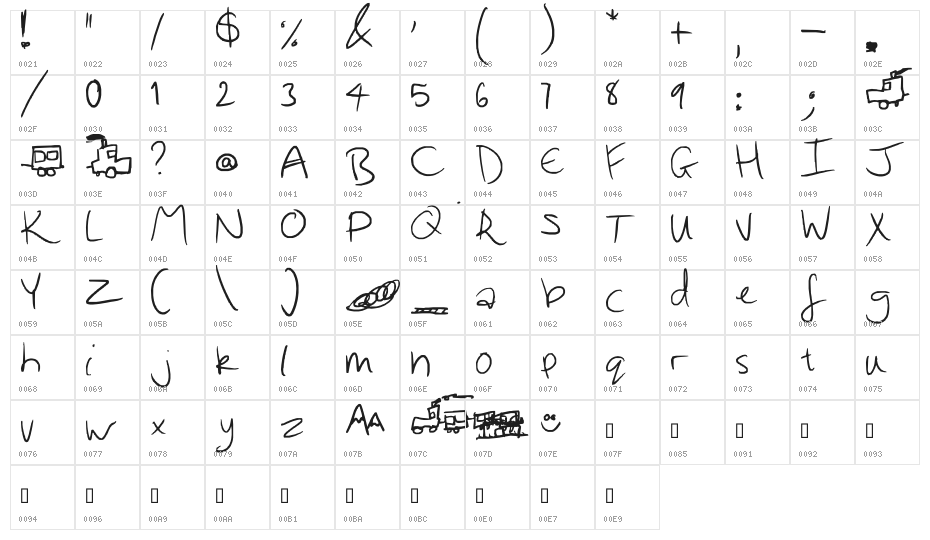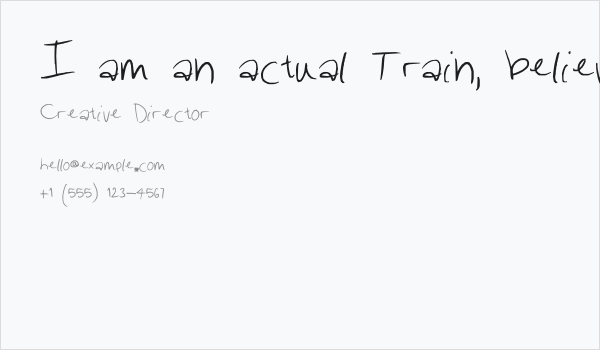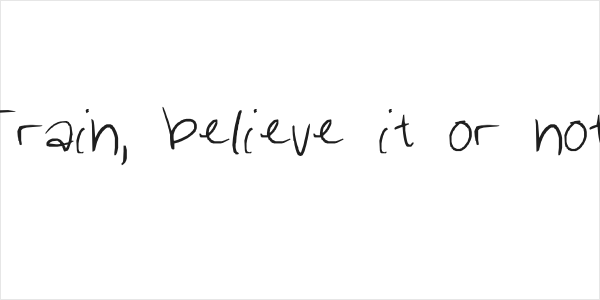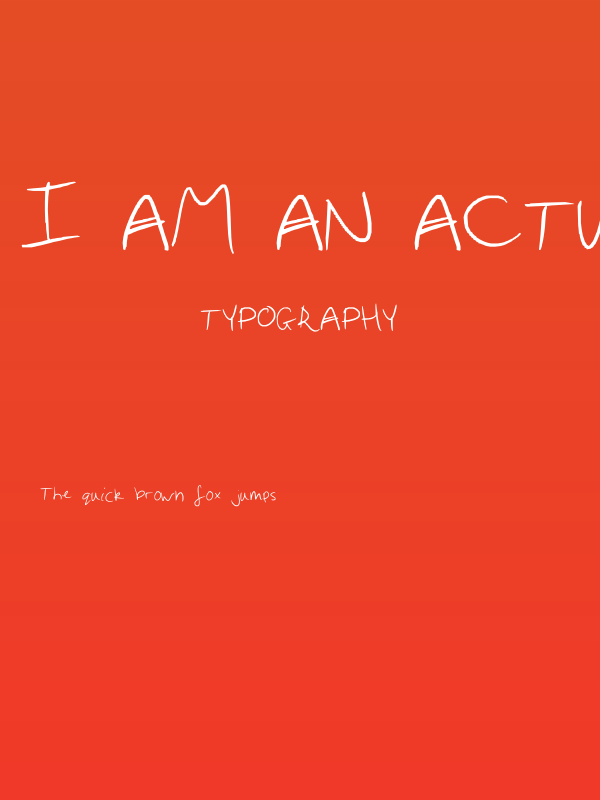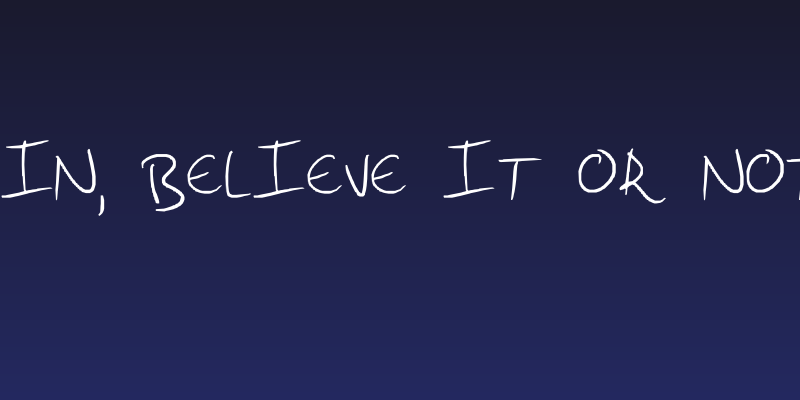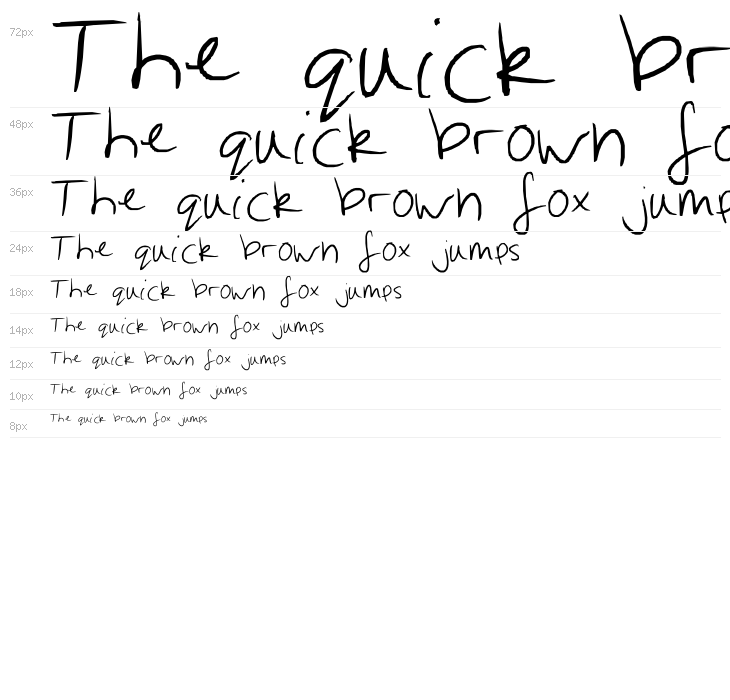
I am an actual Train, believe it or not, believe it or not Font
I am an actual Train, believe it or not, believe it or not Description
This font features a casual, handwritten style that exudes a sense of informality and approachability. The letters are slightly irregular, with varying stroke widths that give it a dynamic and lively appearance. The uppercase and lowercase letters maintain a consistent style, with rounded edges and a playful, almost whimsical feel. The numbers and special characters follow the same aesthetic, ensuring a cohesive look across all elements. This font is perfect for projects that require a personal touch, such as invitations, greeting cards, or creative branding materials.
| Use Case | Headlines, Personal projects, Creative branding |
| Proposed Projects | Ideal for invitations, greeting cards, personal branding, and creative projects. |